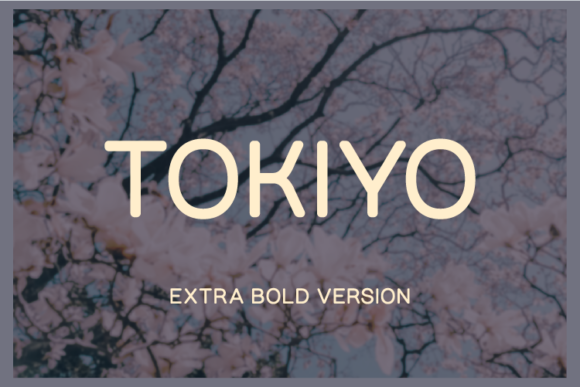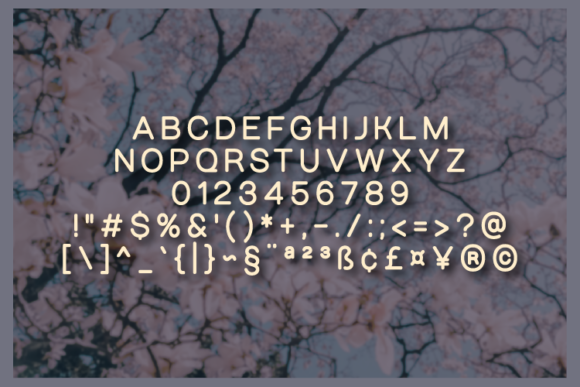
HomeSans Serif FontsTokiyo Extra Bold Font Sans Serif Fonts Tokiyo Extra Bold Font FacebookTwitterPinterestWhatsApp Tokiyo Extra Bold Font 1 of 2 About Tokiyo Extra Bold Font Tokiyo is a sans serif font with Japanese design elements. It smoothly blends beauty and elegance into one outstanding typeface. DOWNLOAD NOW People also explored Brussels For Bestie Font Millenial Font Vanilla White Font Haunted Vampire Font Barcode Font Charissa Font Forever Adam Lila Duo Monserta Font 224 0 TagsTokiyo Extra Bold Font Previous articleTokiyo Black FontNext articleTokiyo Bold Font LEAVE A REPLY Cancel reply Comment: Please enter your comment! Name:* Please enter your name here Email:* You have entered an incorrect email address! Please enter your email address here Website: Save my name, email, and website in this browser for the next time I comment. Personal Use Free Nottingsam Personal Use Free Read more about this font Retro Free Personal Use Free Read more about this font Blast Personal Use Free Read more about this font Sunflower Personal Use Free Read more about this font BLOG Where to Buy American Fonts Online in 2024 Where to Buy American Fonts Online: The Ultimate Guide for 2024 Looking for the perfect American font to elevate your design projects? You're in the... To increase your work productivity, choose the most readable fonts. Best Fonts for T-Shirt Design – Top 2025 Picks Transform Your Website: Elevate Your Typography with 7 Best Web Font Generators